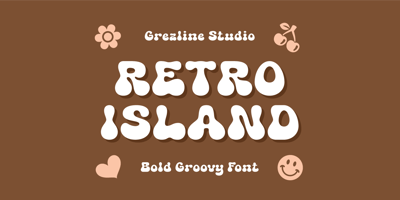
Retro Island
Retro Island font
Retro Island Font Family was designed by Akhmad Reza Fauzi and published by Grezline Studio. Retro Island contains 2 styles and family package options. Retro Island is a cheerful bold groovy font. This font was designed to apply fun expression to any project design you are working on. Retro Island font is suitable for design that needs cute and groovy touch, such as kids design, birthday invitation, summer design, t-shirt design, crafting and many more.Feature :- Dingbat Graphic- Ligature & Alternate glyphs- Multilingual Language- Works on PC & Mac- Simple installations- Accessible in the Adobe Illustrator, Adobe Photoshop, Adobe InDesign, even works on Microsoft Word.Thank you